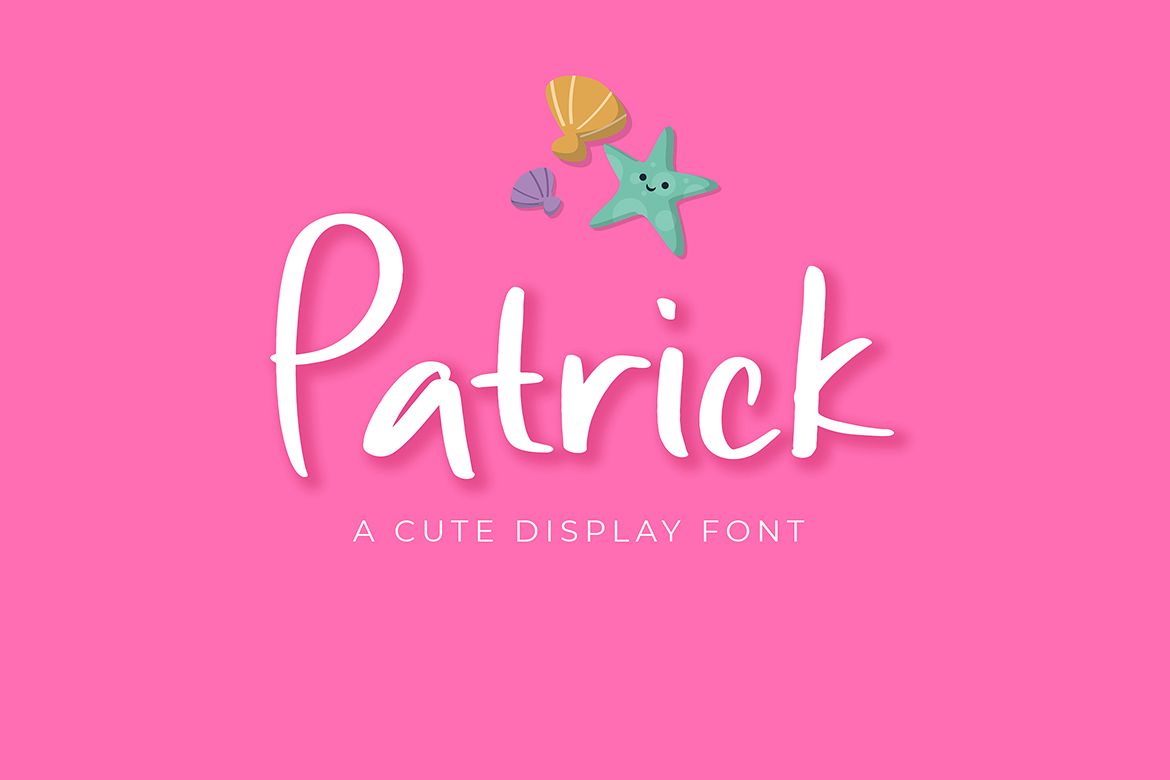
Patrick Cute Display Font
Patrick
Patrick Cute Display Font is a cute and amazing display font that will make children's themed designs stand out!
Patrick is perfect for branding projects, logo, book cover design,
tshirt designs, social media posts, advertisements, product packaging,
product designs, label, watermark, invitation, stationery and any
projects